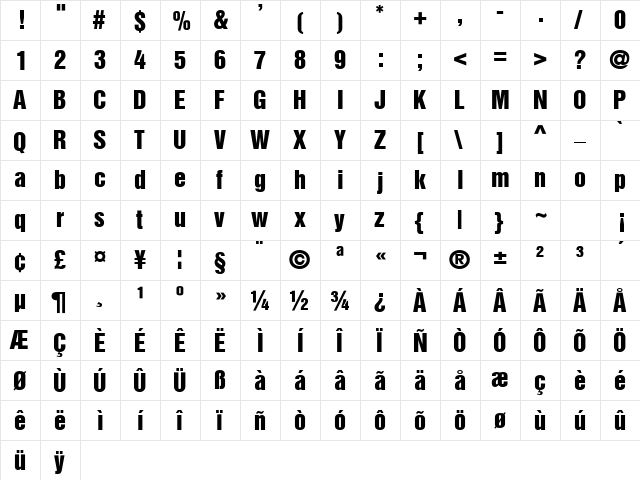
Switzerland Inserat Plain
Design Context for Switzerland Inserat Typeface
Switzerland Inserat is a composed and adaptable typeface that performs quietly and consistently across a wide range of design contexts.